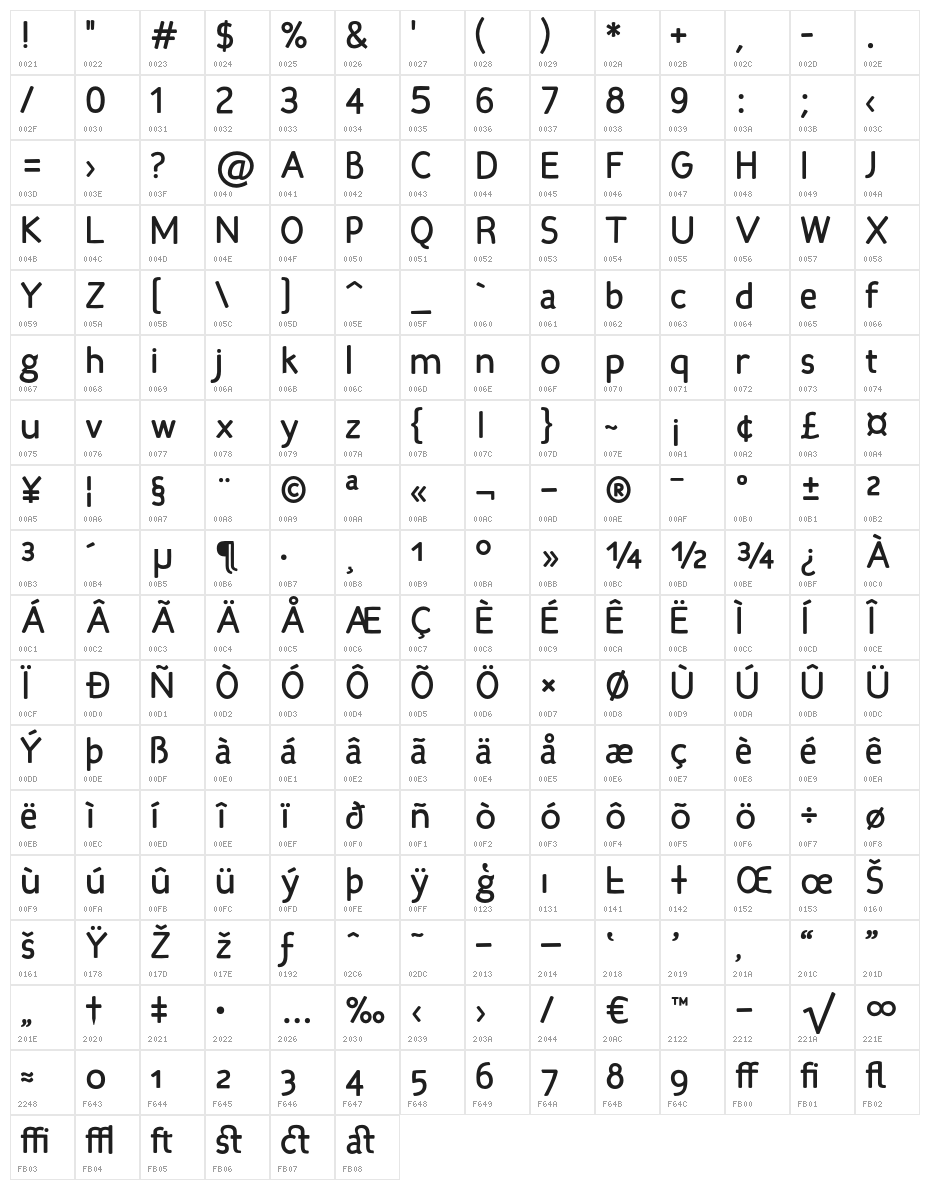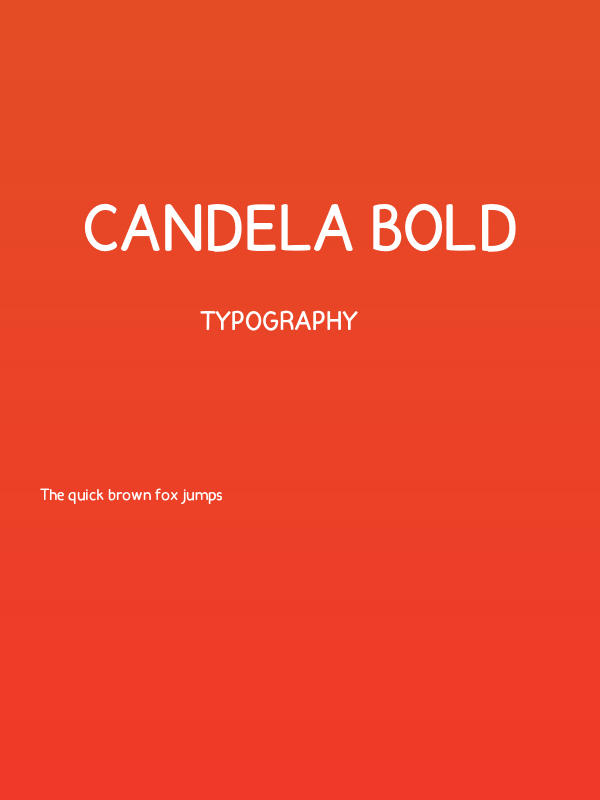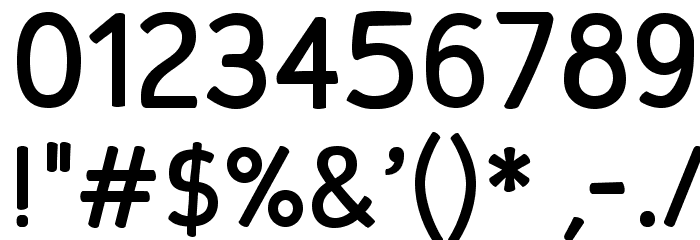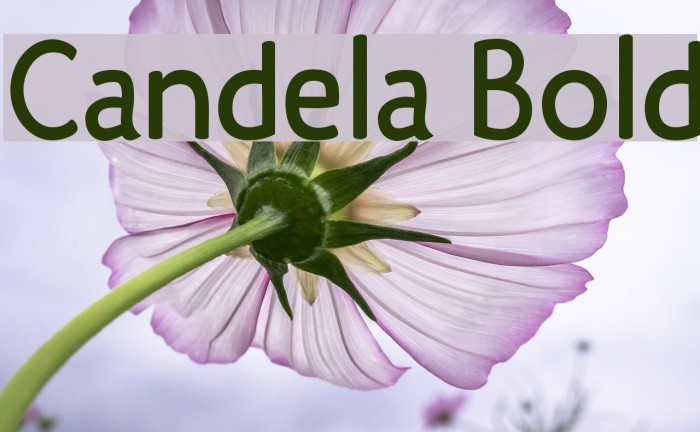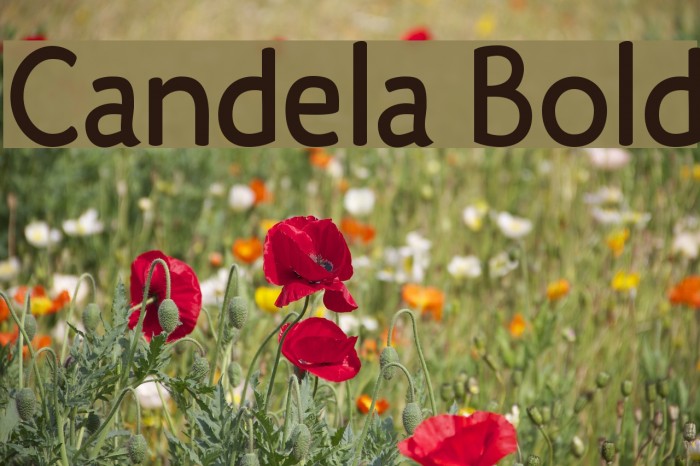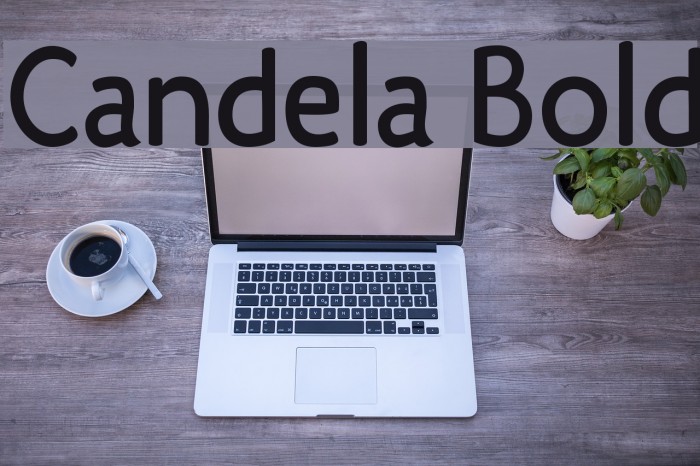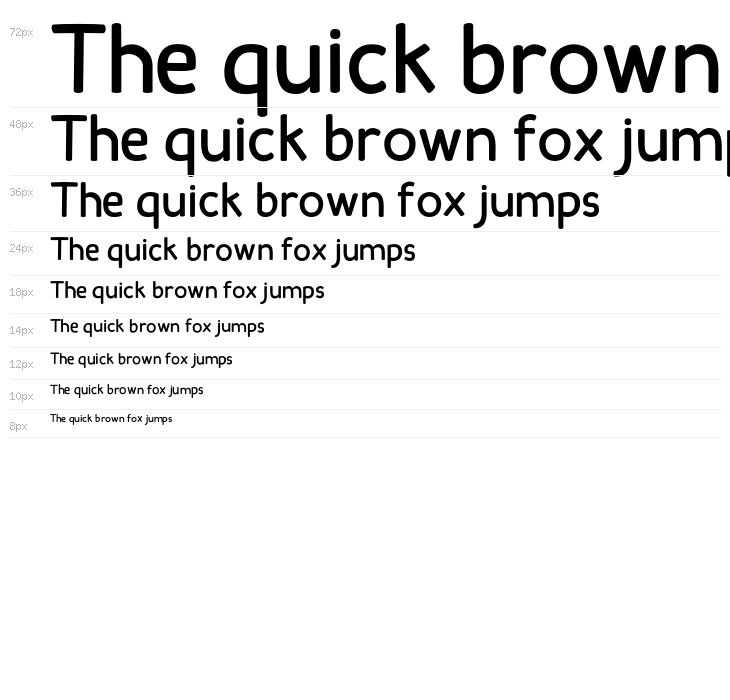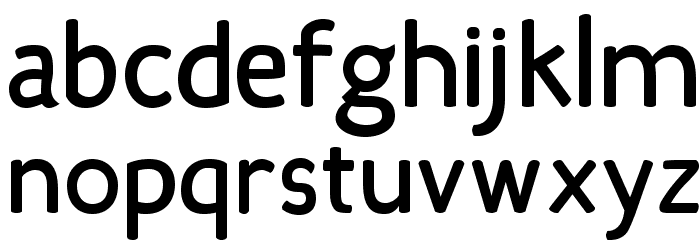
Candela Bold Font
Candela Bold Description
This font features a clean and modern sans-serif style with bold, rounded characters that convey a sense of friendliness and approachability. The uniform stroke width and smooth curves give it a contemporary look, making it highly legible across various sizes. Its geometric shapes and consistent proportions provide a balanced and harmonious appearance. The font includes a full set of uppercase and lowercase letters, numerals, and a variety of special characters, making it versatile for different design needs.
| Use Case | Headlines, Logos, User Interfaces |
| Proposed Projects | Ideal for branding, advertising, web design, and user interfaces due to its clarity and modern appeal. |